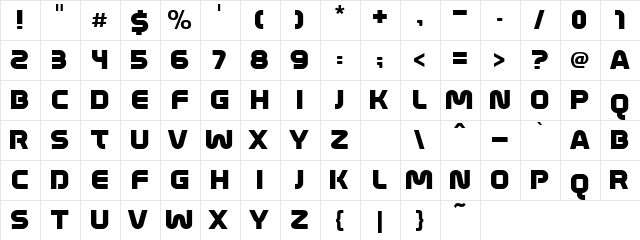
Mathmos Original Regular
Design Context for Mathmos Original Typeface
Mathmos Original is a composed and adaptable typeface that performs quietly and consistently across a wide range of design contexts.